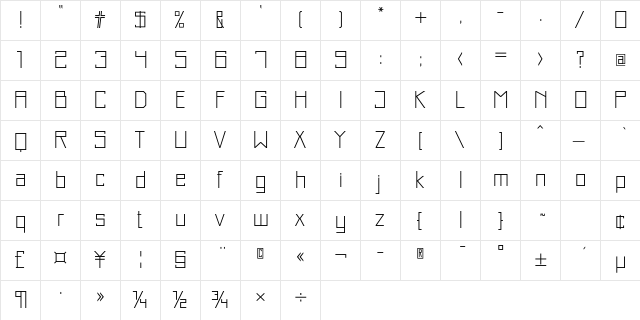
Just Square LT Std Cyrillic Thin
| Foundry | Linotype GmbH |
| Designer | Zoran Kostic |
Design Context for Just Square LT Std Cyrillic Typeface
Just Square LT Std Cyrillic takes a measured approach to typography — its balanced proportions and neutral character make it a reliable workhorse for both digital and print work. The delicate stroke weight brings airiness and refinement to layouts.